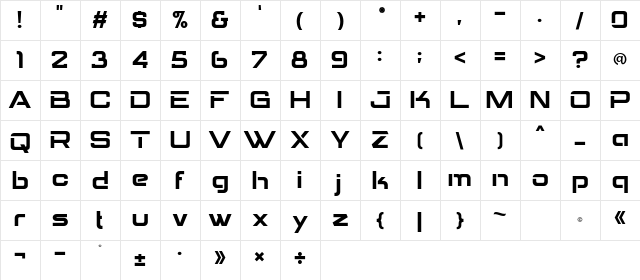
BRAVE Eightyone Regular
| Foundry | Alit Design |
| Designer | Alit Suarnegara |
Design Context for BRAVE Eightyone Typeface
BRAVE Eightyone is a composed and adaptable typeface that performs quietly and consistently across a wide range of design contexts.